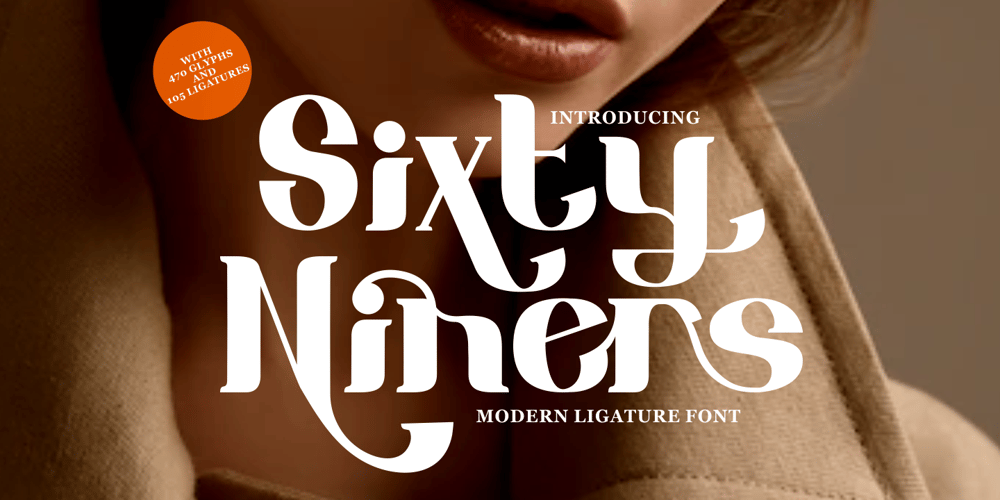
Sixty Niners Font Family was designed by Putra Novembria Candra Kusuma and published by Putracetol. Sixty Niners contains 2 styles and family package options. Introducing Sixty Niners – a retro display font that draws inspiration from unique typography and lettering found in vintage magazines, combined with modern typography styles. This font features modern ligatures that allow you to create beautiful lettering and artwork. With its open type features, including a variety of alternates and end swashes, Sixty Niners provides ample options for customization and creativity.Sixty Niners is perfect for a wide range of design purposes, including logotypes, headings, covers, posters, logos, quotes, product packaging, headers, merchandise, social media posts, greeting cards, and more. Its distinctive retro style adds a touch of nostalgia and elegance to your designs, making them stand out and capture attention.To access the alternate glyphs in Sixty Niners, you can use design programs that support OpenType features, such as Adobe Illustrator CS, Adobe Photoshop CC, Adobe InDesign, and Corel Draw. This allows you to easily switch between uppercase and lowercase letters, apply alternates and ligatures, and create unique and customized lettering compositions that suit your design needs.In your zip package, you’ll find the Sixty Niners font files in otf, ttf, and woff formats, providing versatility for different design projects. The font includes uppercase and lowercase letters, numerals, punctuation, and symbols, ensuring that you have all the elements you need for your designs.Sixty Niners also offers multilingual support, making it accessible for designers around the world to create designs in different languages. Whether you’re designing for English, Spanish, French, or any other language, Sixty Niners has got you covered.In summary, Sixty Niners is a retro display font that combines vintage and modern typography styles, providing a unique and elegant look to your designs. With its open type features, multilingual support, and versatile design options, Sixty Niners is perfect for various design purposes. So, elevate your designs with Sixty Niners and create stunning artwork that captures attention and stands out from the crowd! Thank you for choosing Sixty Niners from our collection. Happy designing!